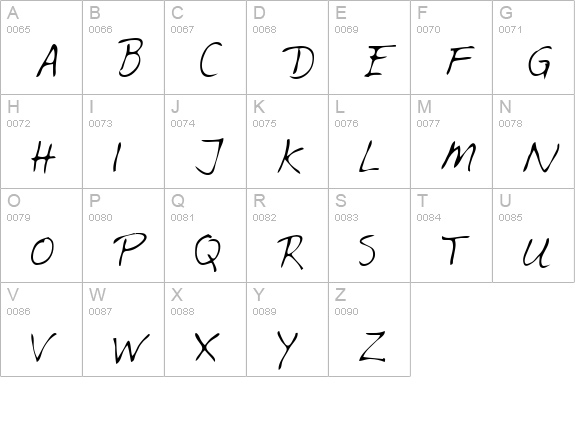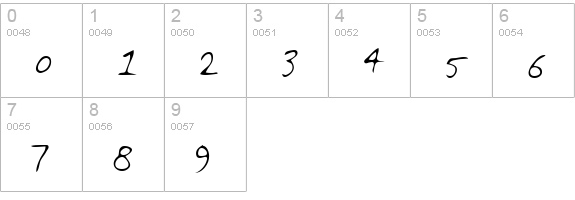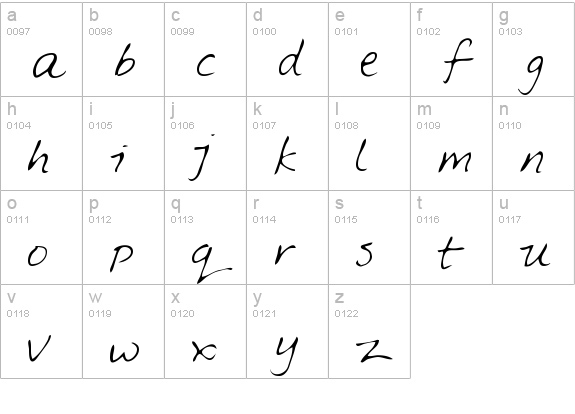
Feltpen Font Details
The Feltpen font is a whimsical and playful typeface that captures the essence of creativity and fun. Its unique hand-drawn appearance gives a personal touch to any design, making it perfect for projects that require a touch of charm and character. Whether you're working on a greeting card, poster, or branding project, Feltpen font will add a delightful and casual flair to your work. Best of all, Feltpen font is available for free download at FontsMarket.com, making it easily accessible to anyone looking to add a touch of creativity to their designs. Embrace the playful spirit of Feltpen font and bring your projects to life with its charming handwritten style.